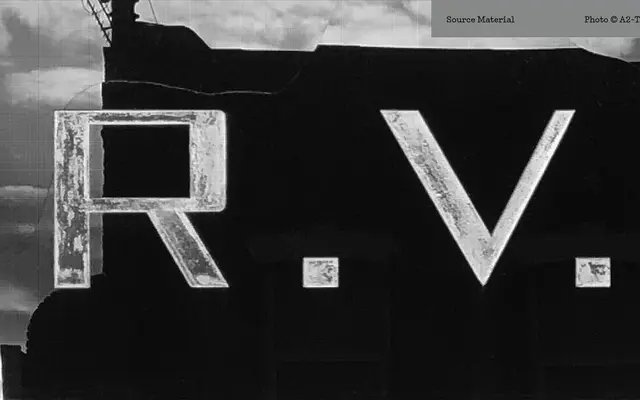
RV Shaddick
A revival of Art Deco gold leaf shop-sign lettering from East London, available in two widths with conventional and backslanted italics.
Drawn from an old East London shop sign, the design combines precisely rendered Art Deco lettering with a contemporary edge across two master widths, One and Two. Each width comes with a standard 20° italic and a backslanted -20° italic, the latter a historical curiosity found in early specimens such as Figgins Seven Lines Pica, No. 2. The family ships as six pre-defined static styles plus a variable font spanning both width axes.
A revival of gold leaf shop-sign lettering with Art Deco proportions, designed exclusively for display use across two width masters with conventional and backslanted italic companions.